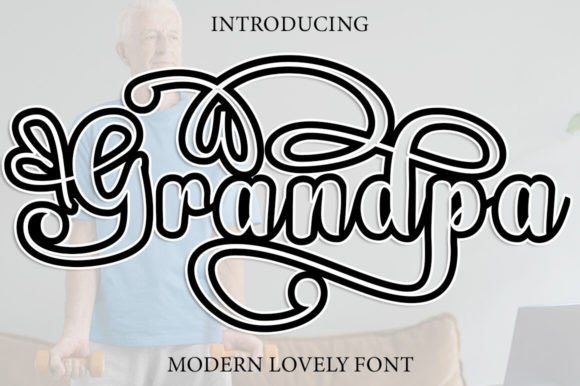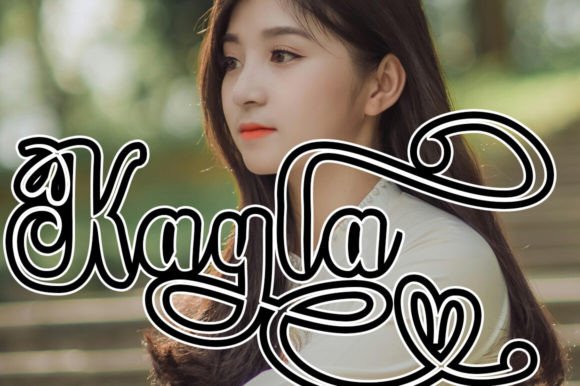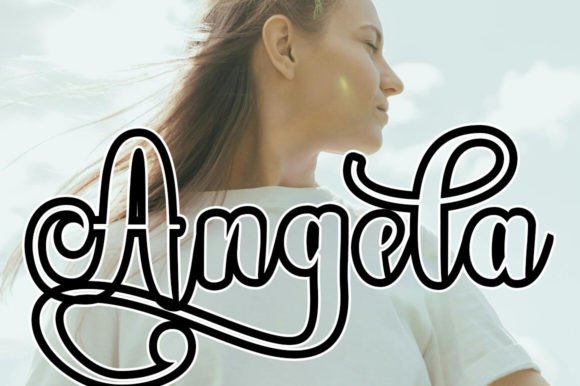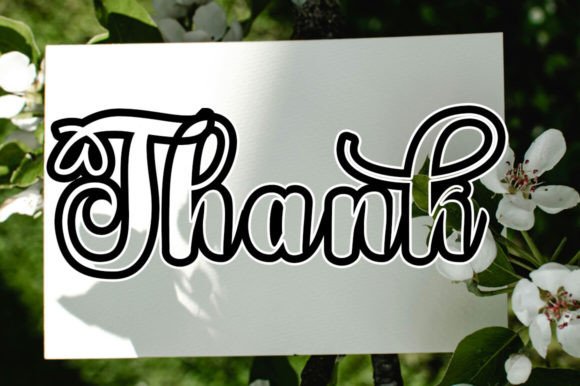
Discover the Timeless Charm of Grandpa Outline Font
Enter the Grandpa Outline Font, a stunning script font that adds a touch of warmth and sophistication to any project. With its stylish and elegant design, this font is perfect for wedding invitations, thank you cards, quotes, and any other design that requires a handwritten touch. As a designer, you’ll appreciate the value of Grandpa Outline Font for its versatility and ease of use, thanks to its PUA encoding that allows you to access all glyphs and alternates with ease.
Grandpa Outline Font Key Features
- Font Family: Grandpa Outline is a unique, hand-drawn font designed to resemble handwritten notes from a grandfather. It is available in various font formats, including OTF, TTF, and WOFF.
- Unique Characteristics: The font features a distinctive, hand-drawn style with subtle imperfections, giving it a personal and nostalgic feel. The letters are connected, creating a sense of flow and making the text more readable.
Review of Grandpa Outline Font
Overall, I think the Grandpa Outline Font is a unique and quirky addition to any design project. It’s perfect for creating a nostalgic or vintage vibe. ✨ The subtle outline details and imperfections give it a hand-drawn feel that can add a lot of character to your work.
- Unique aesthetic: The Grandpa Outline Font has a distinct look that sets it apart from more common fonts.
- Good for nostalgic projects: It’s perfect for designs that aim to evoke a sense of nostalgia or retro charm.
- Flexibility: It’s available in a range of weights and styles, making it easy to use in different contexts.
Limitsations:
- Legibility: At small font sizes, the outline details can make the text difficult to read.
- Limited use in modern designs: While it’s great for nostalgic projects, it may not be the best choice for more modern or sleek designs.
- Not suitable for long blocks of text: The font’s imperfections can make it harder to read when used in large amounts of text.
In conclusion, I think the Grandpa Outline Font is a great choice for designers who want to add a unique touch to their work. While it may have some limitations, its quirky aesthetic and flexibility make it a great option for the right project. ⚠️ Just be mindful of its limitations and use it wisely.
For a nostalgic feel, pair the Grandpa Outline Font with vintage-inspired graphics and textures.
For a retro look, combine the Grandpa Outline Font with distressed textures and subtle shading.
For a classic feel, pair the Grandpa Outline Font with simple, bold graphics and minimal background colors.
The Grandpa Outline Font is perfect for:
- Creating a nostalgic or retro aesthetic.
- Designing vintage-inspired marketing materials.
- Adding a classic touch to presentations and documents.
Q: Does the Grandpa Outline Font support ligatures and alternate glyphs?
Yes, the Grandpa Outline Font includes ligature and alternate glyph support. This allows for more creative control and flexibility when designing with the font.